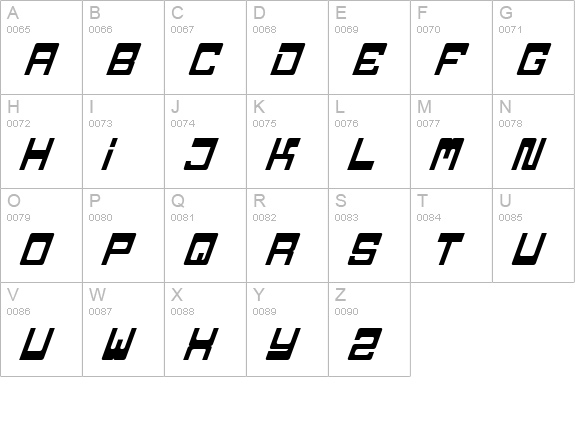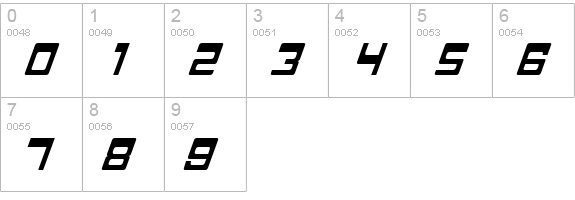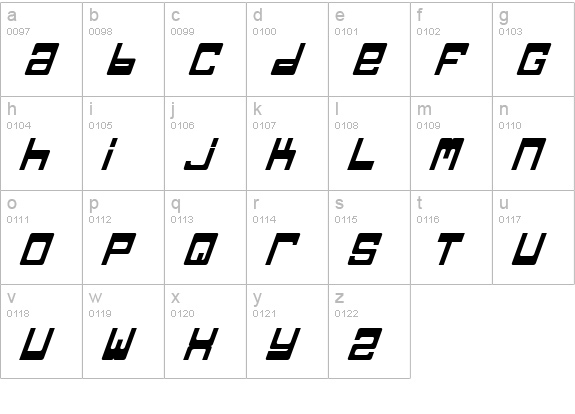
Introducing TPF Jaib BoldItalic Font, a remarkable and stylish typeface that exudes a sense of confidence and sophistication. Designed for those seeking a touch of elegance in their projects, this font is the perfect choice for any creative endeavor. With its bold and italic variations, TPF Jaib offers versatility and flexibility, allowing you to create eye-catching designs that stand out. Whether it is for headlines, titles, logos, or branding materials, this font is guaranteed to make a lasting impression. TPF Jaib BoldItalic Font is not only visually striking but also incredibly easy to use. Its clean and well-defined letterforms ensure legibility at any size, making it suitable for both print and digital applications. What sets TPF Jaib BoldItalic Font apart is its availability as a free download. Yes, you read that right – this exceptional font can be freely obtained at FontsMarket.com. Say goodbye to hefty licensing fees and hello to high-quality typography without breaking the bank. So why wait? Download TPF Jaib BoldItalic Font today and elevate your designs to new heights. Whether you are a professional designer, a student, or simply someone with a passion for creativity, this font is a must-have in your font library. Unleash your imagination and watch as TPF Jaib BoldItalic Font transforms your projects into works of art.